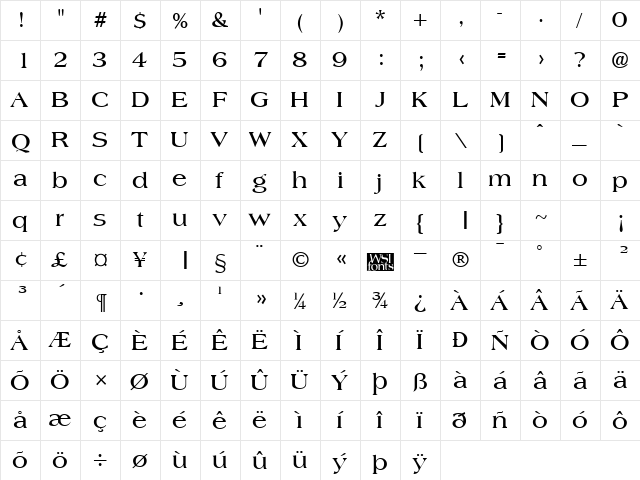
Amphion Bold
Design Context for Amphion Typeface
Amphion is a composed and adaptable typeface that performs quietly and consistently across a wide range of design contexts. The heavy weight commands attention and anchors typographic hierarchies.